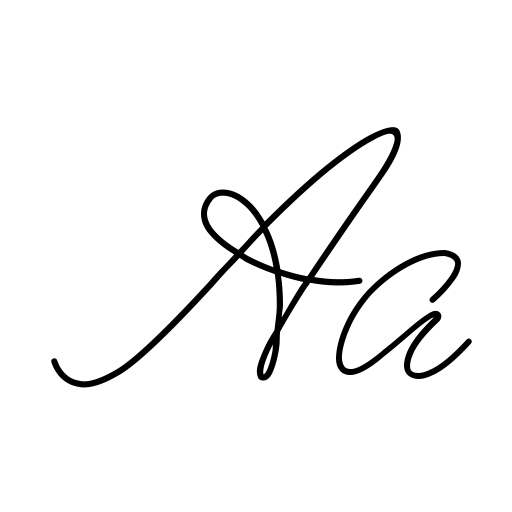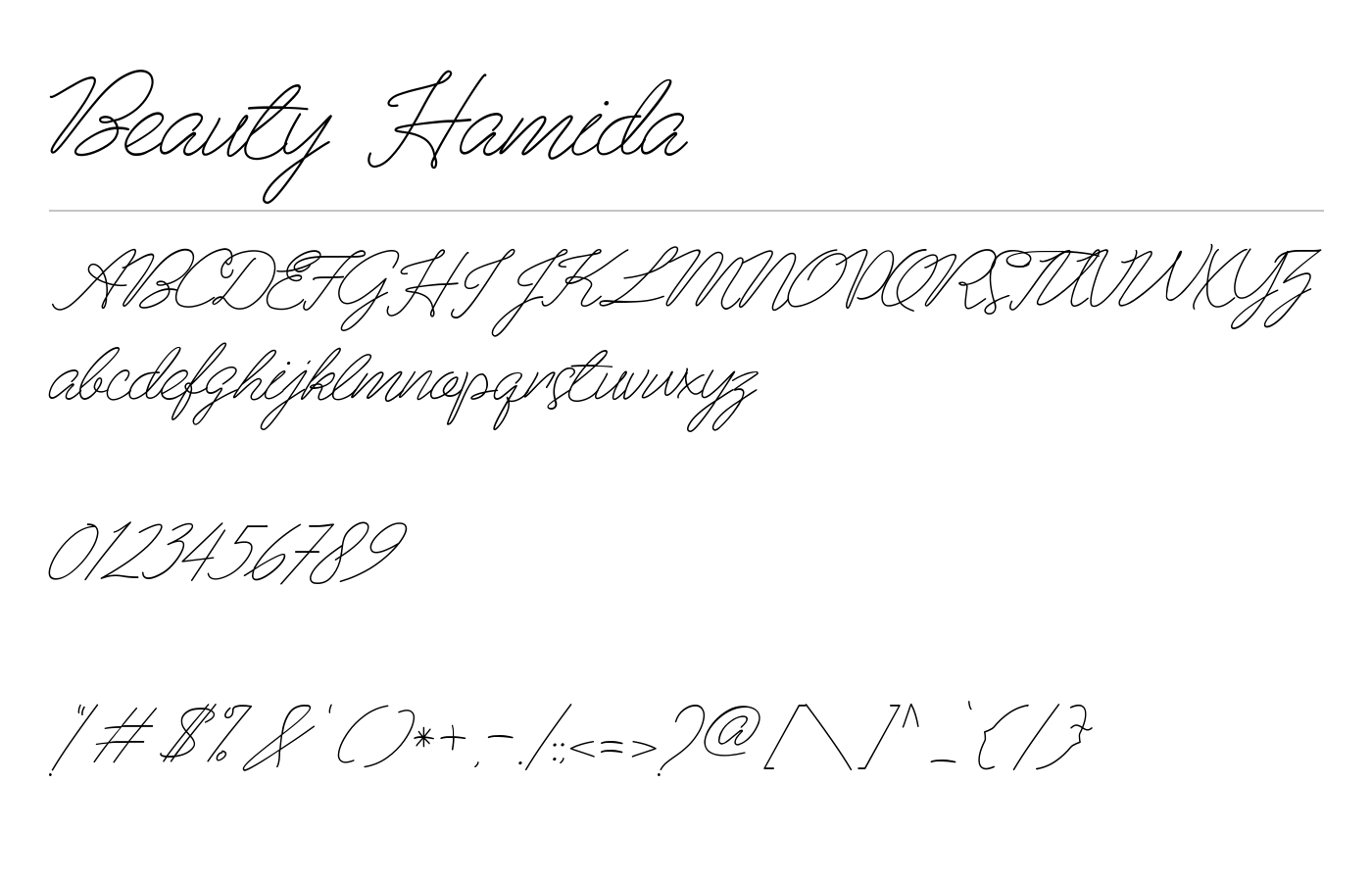
Beauty Hamida is an elegant, thin script font characterized by its delicate, flowing strokes and high slant angle, giving it a graceful, handwritten feel. Its fine line weight and airy letterspacing make it ideal for sophisticated branding, invitations, and personal signatures where a refined, stylish impression is desired. This font works best in contexts that require a touch of elegance and femininity, enhancing designs with its charming and expressive personality.
Beauty Hamida Font
About Beauty Hamida Font
| Font family | Beauty Hamida Font |
| Designer | zeenesia 2021 |